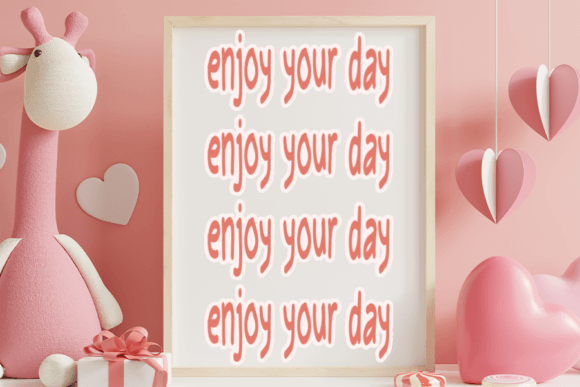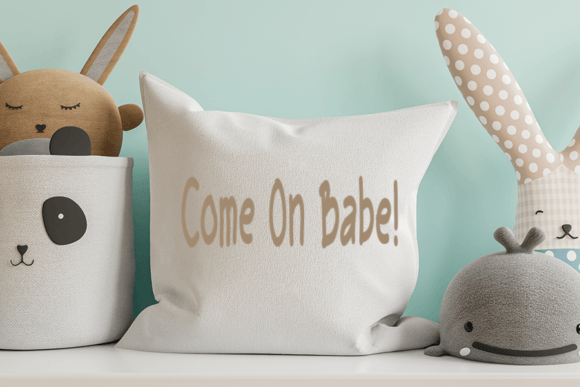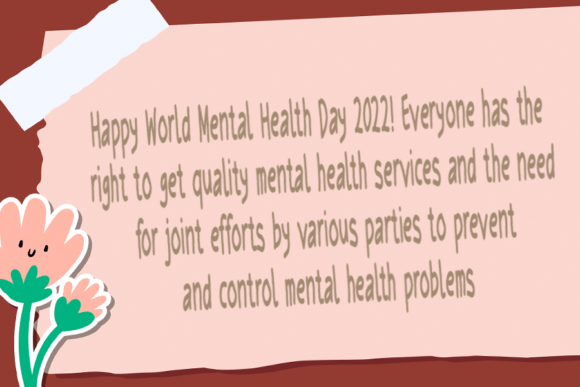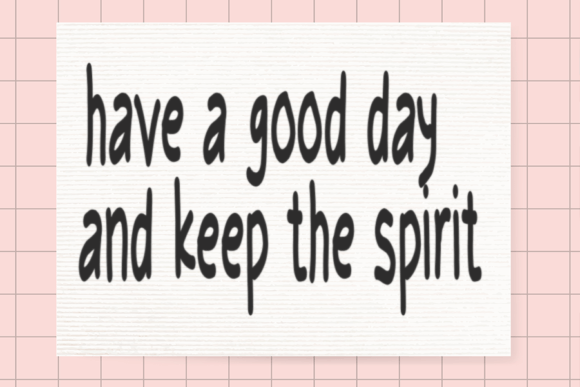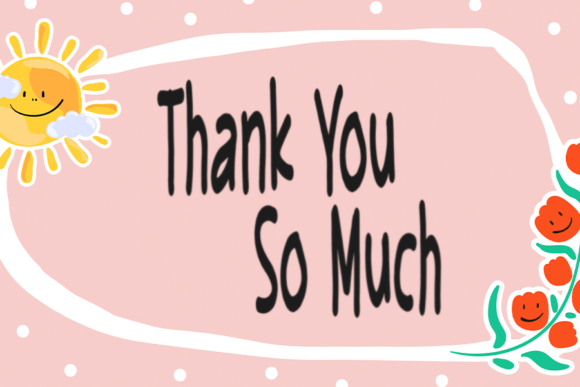
Note It You Font
About Note It You Font
Note It You Font download offers a quirky twist on classic handwritten typography. With its playful yet refined strokes, this font brings a unique personality to any design. Whether you’re working on elegant branding or casual stationery, this typeface is ready to elevate your creative work with a friendly and modern feel.
Designed to blend simplicity with sophistication, Note It You has just enough character to stand out while maintaining high readability. It’s a handwritten font that feels organic and personal—perfect for creative professionals who want a soft, artistic vibe in their visuals.
Ideal Uses for Note It You Font
With its classy yet casual tone, the Note It You Font download is ideal for a variety of applications, from personal branding to formal events.
Perfect for:
• Wedding invitations and stationery
• Personal and business logos
• Instagram quotes and lifestyle posts
• Product packaging and handmade labels
• Blog headers and YouTube thumbnails
• Greeting cards and digital scrapbooking
The versatility of this font ensures your message is both memorable and stylish.
• Uppercase & lowercase letters
• Numbers and punctuation
• Smooth lines for a clean handwritten look
Why Choose Note It You Font?
The charm of the Note It You Font download lies in its balance. It’s quirky without being chaotic, elegant without being stiff. This makes it a rare typeface that can be used both in professional branding and playful design work.
Its handwritten nature adds a personal touch to designs while still keeping things neat and legible. Whether you’re crafting a high-end logo or a fun Instagram graphic, Note It You adapts beautifully to your creative needs.